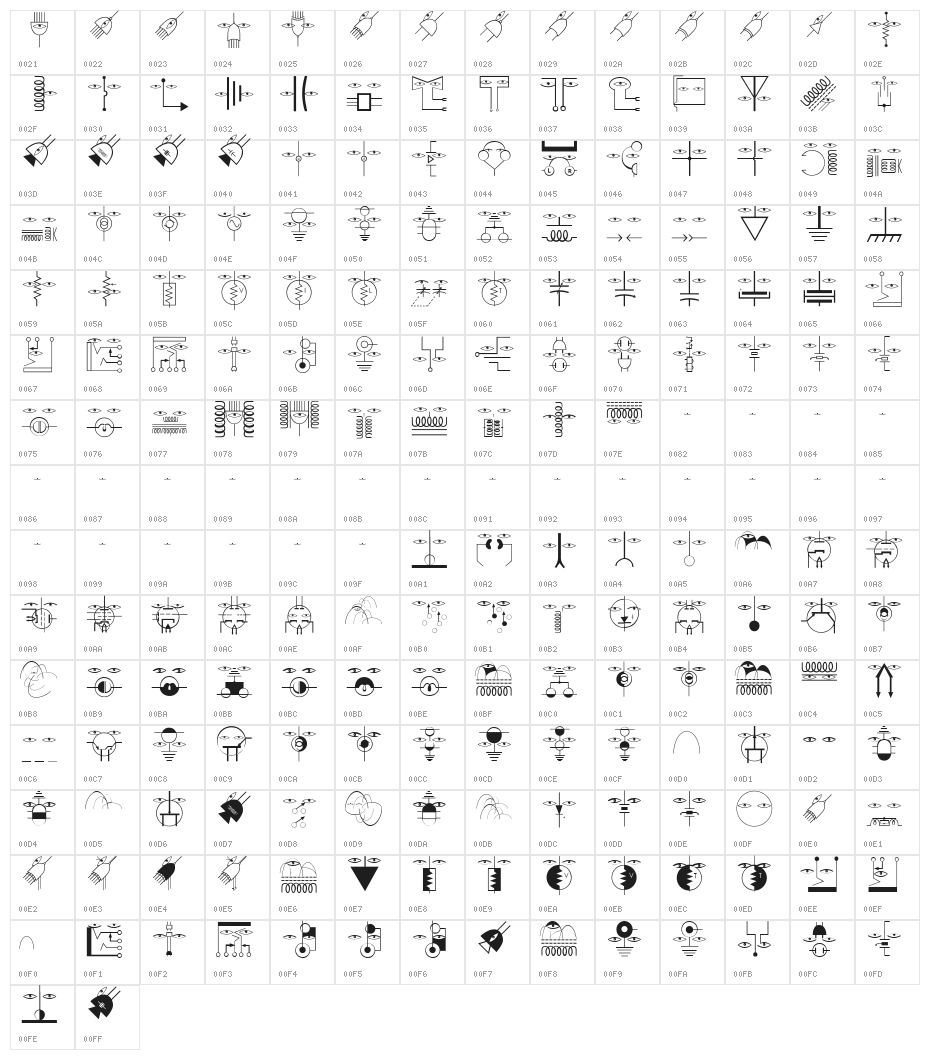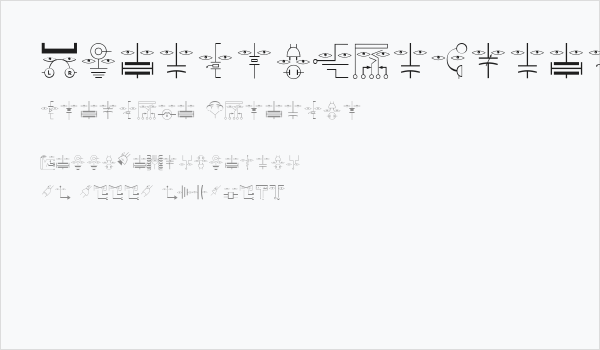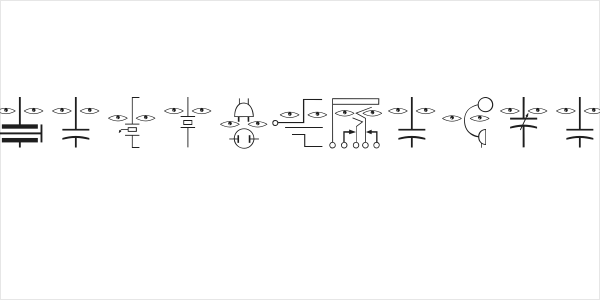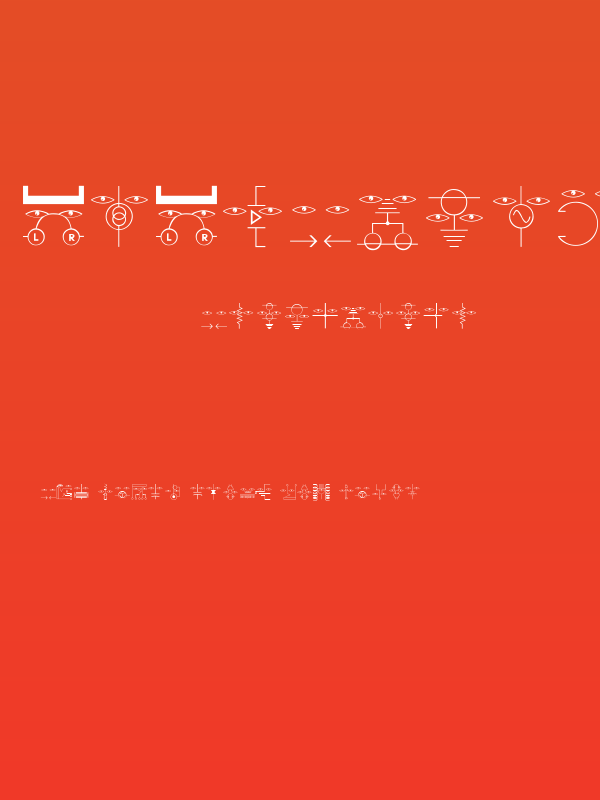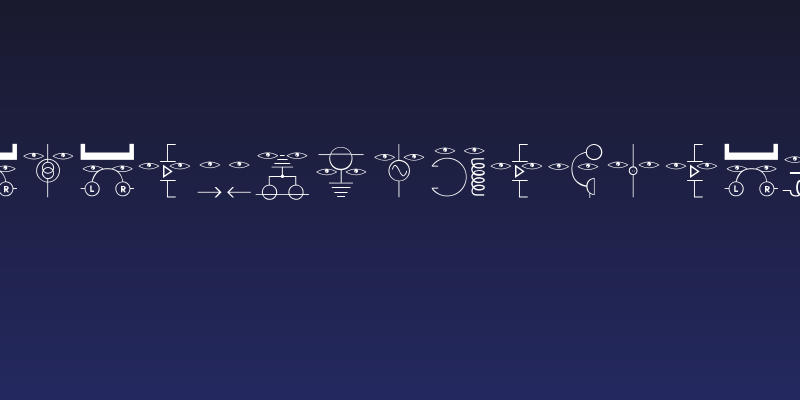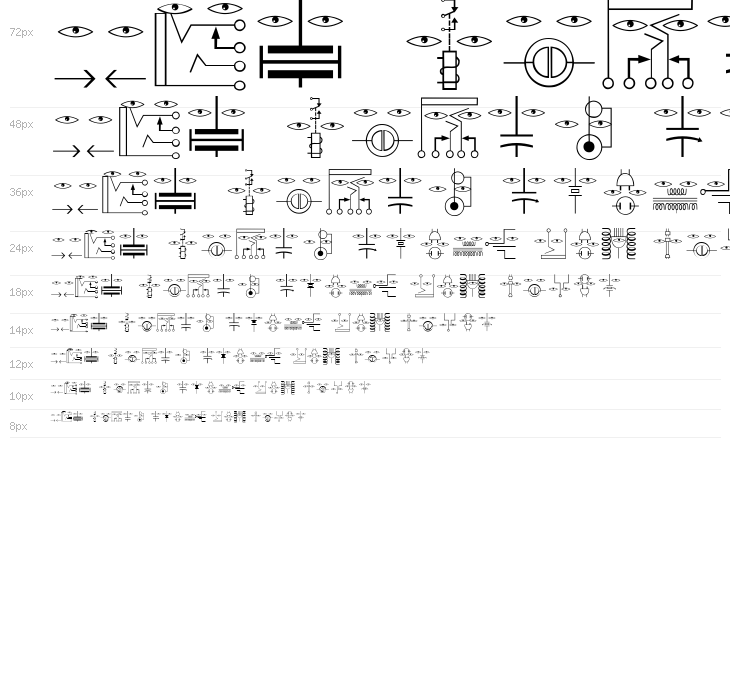
ElectronicFaces Font
ElectronicFaces Description
This design features a highly decorative and abstract style, incorporating elements reminiscent of electronic circuit diagrams and symbolic representations. Each character is composed of intricate lines and shapes, including circles, arrows, and geometric patterns, creating a futuristic and technical appearance. The overall aesthetic is unique and visually striking, making it suitable for creative and artistic projects that require a modern and unconventional look. The characters are evenly spaced, maintaining a consistent alignment that enhances readability despite the complex designs. This style is not suitable for traditional text but excels in creating thematic and visually engaging compositions.
| Overall Style | Futuristic, Technical, Abstract |
| Use Case | Logos, Artistic compositions, Thematic posters |
| Proposed Projects | Ideal for sci-fi themed designs, digital art projects, and innovative branding that seeks a futuristic and technical edge. |